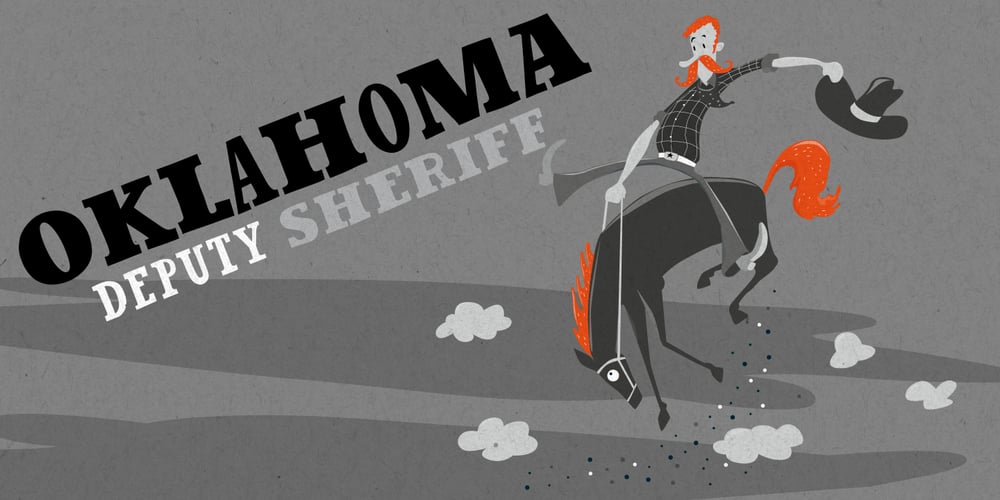
Oklahoma
Oklahoma font
Oklahoma Font Family was designed by Ingo Krepinsky and published by Die Typonauten. Oklahoma contains 5 styles and family package options. Wild, wild, west.